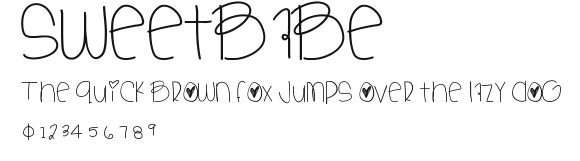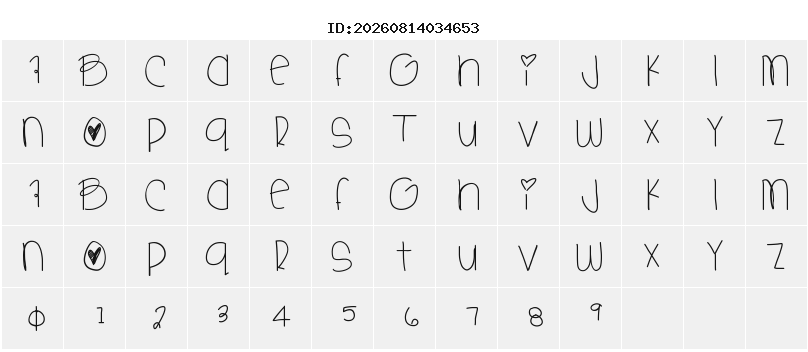
• Font Name: SweetBabe
SweetBabe.ttf is a modern, elegant sans-serif font designed for ultimate readability and visual harmony. Perfect for branding, headlines, web design, and print materials.